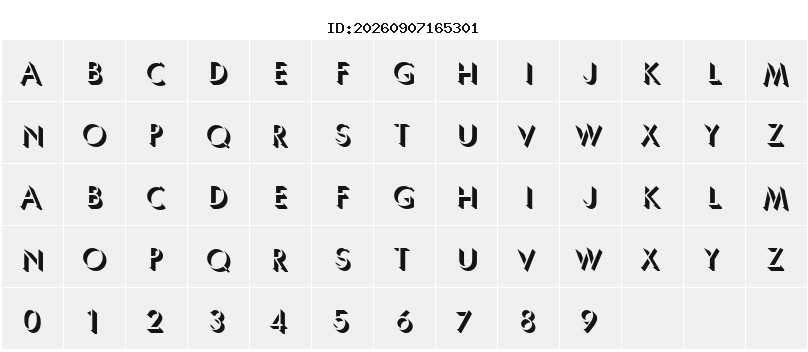
• Font Name: Umbra BT
• Font ID: Umbra, Decorated 091
• Full Font Name: Umbra BT
• PostScript Name: UmbraBT-Regular
About Umbra BT.ttf
Umbra BT.ttf is a modern, elegant sans-serif font designed for ultimate readability and visual harmony. Perfect for branding, headlines, web design, and print materials.